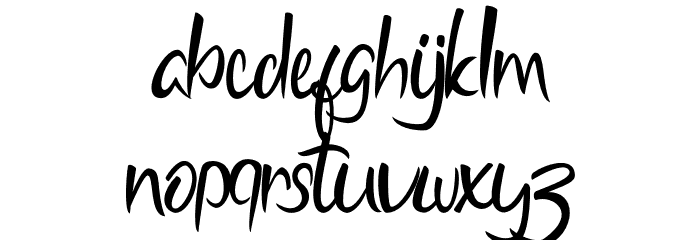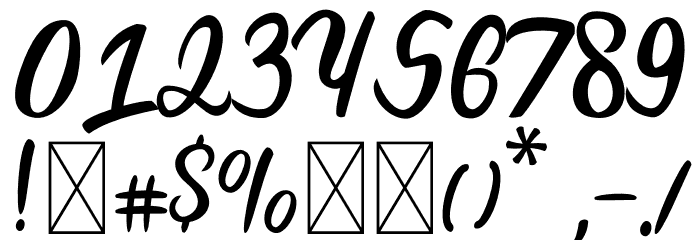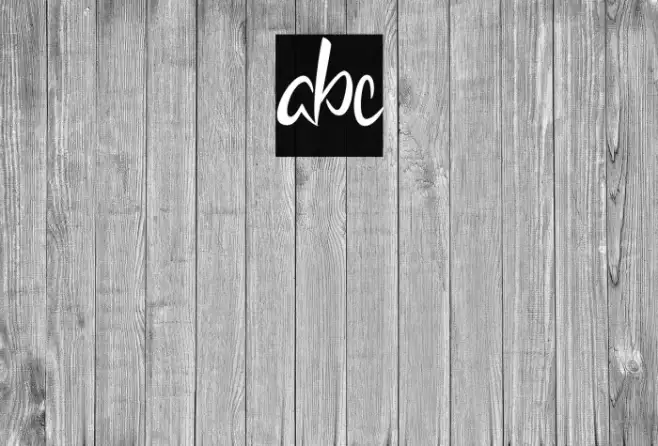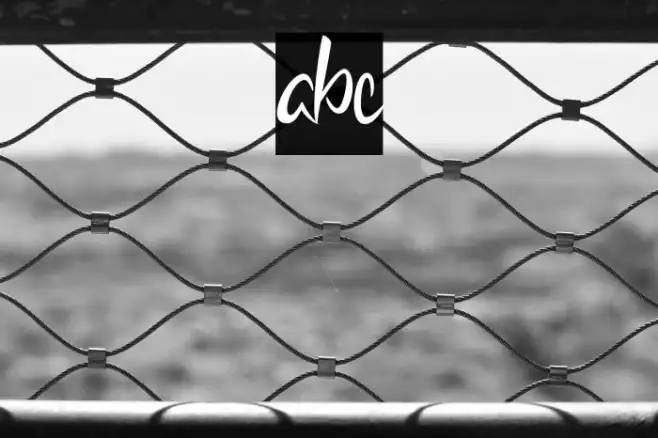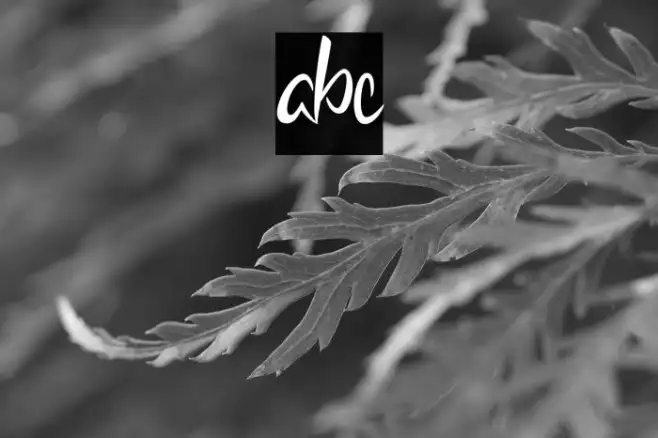
Bodytrack Font
This font exudes a dynamic and energetic style, characterized by its bold and fluid script. The letters are crafted with a sense of movement, featuring sweeping curves and sharp angles that give it a lively appearance. The uppercase letters are particularly striking, with exaggerated loops and flourishes that add a touch of elegance. The lowercase letters maintain this fluidity, offering a harmonious balance between readability and artistic flair. The numerals are equally expressive, integrating seamlessly with the overall design. This font is perfect for projects that require a sense of creativity and boldness.
A bold, fluid script font with dynamic curves and artistic flair.
- Proposed Projects: Ideal for branding, logos, invitations, and creative posters.
- Use Case: Logos, Headlines, Creative projects